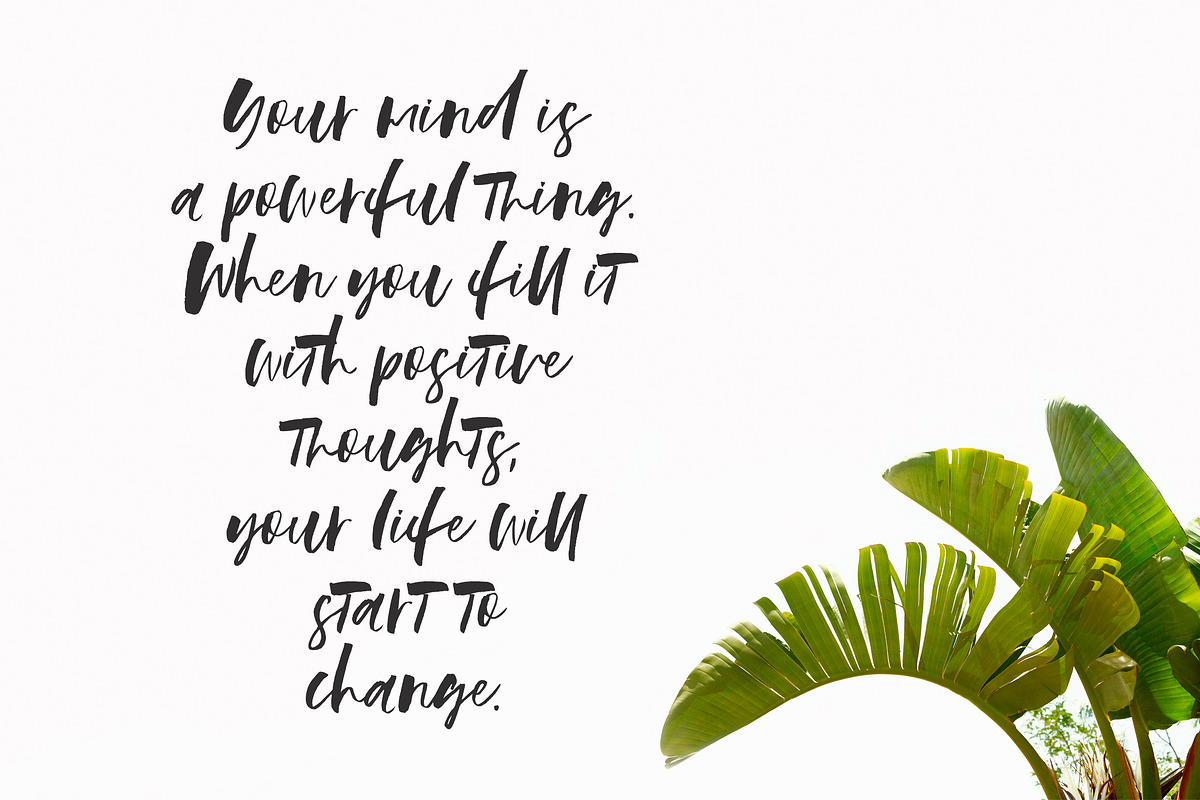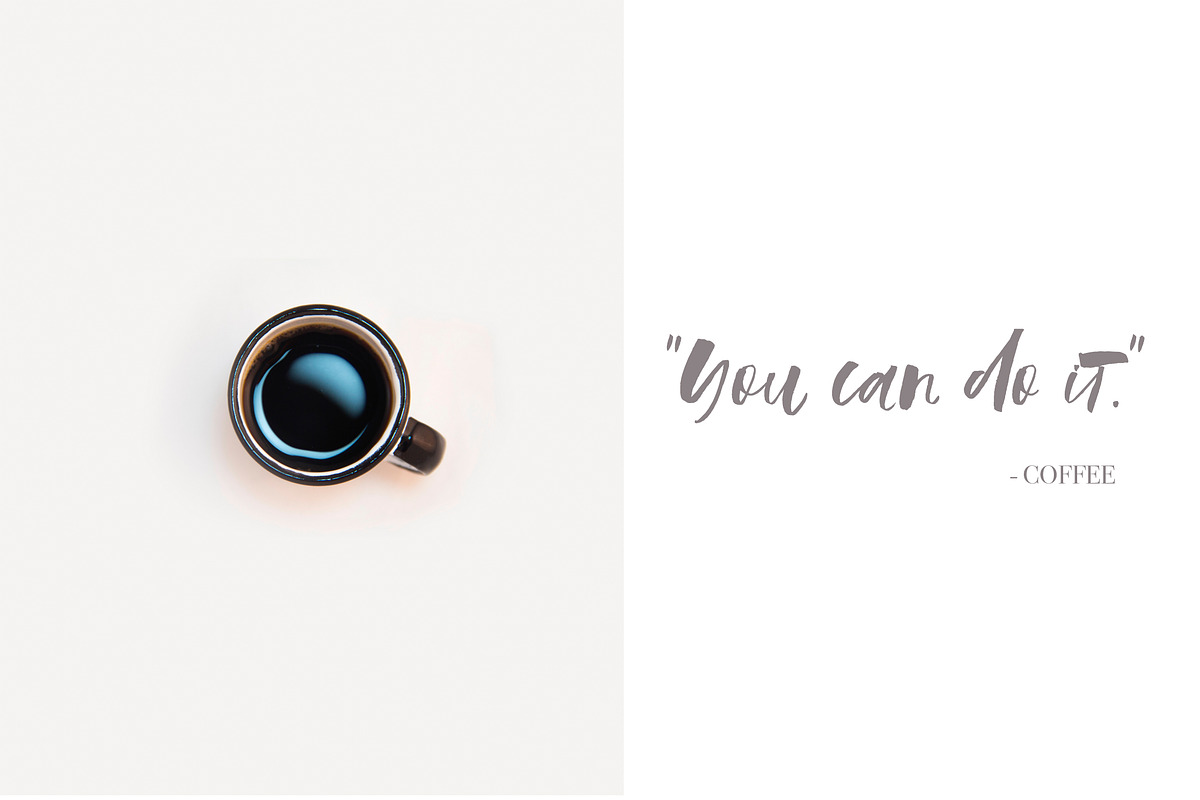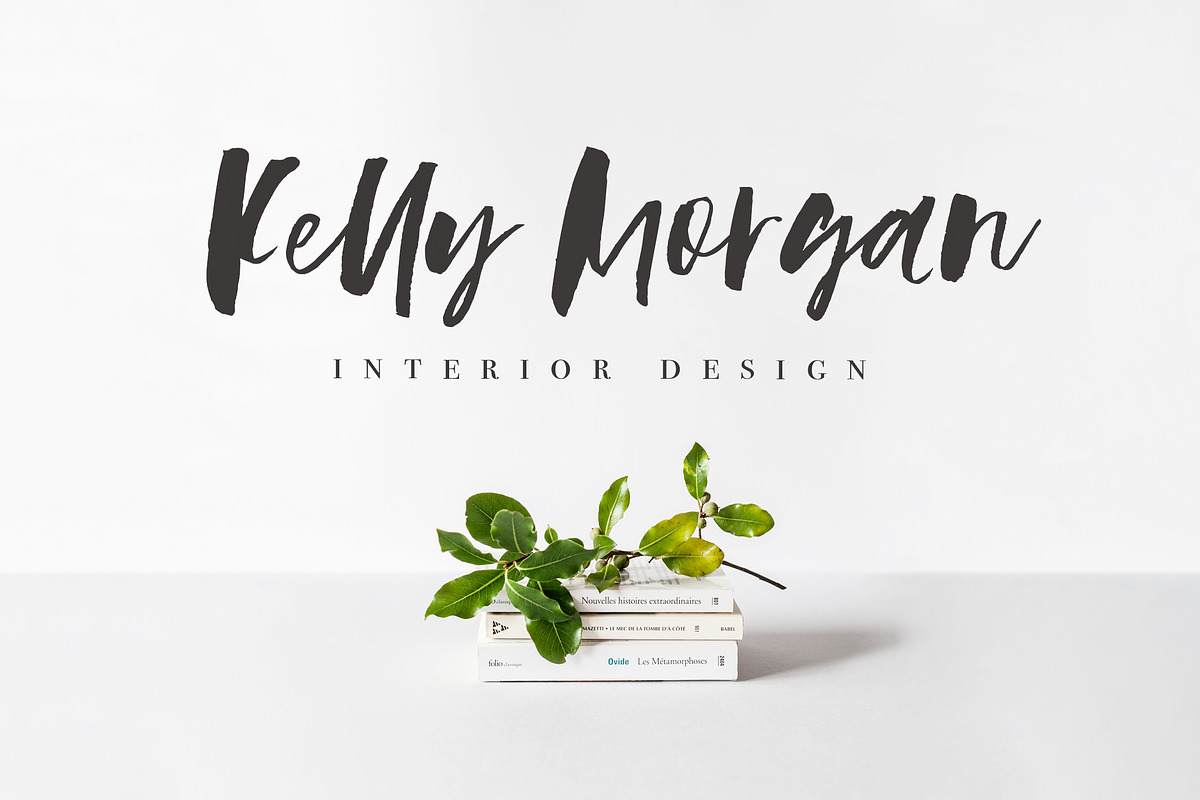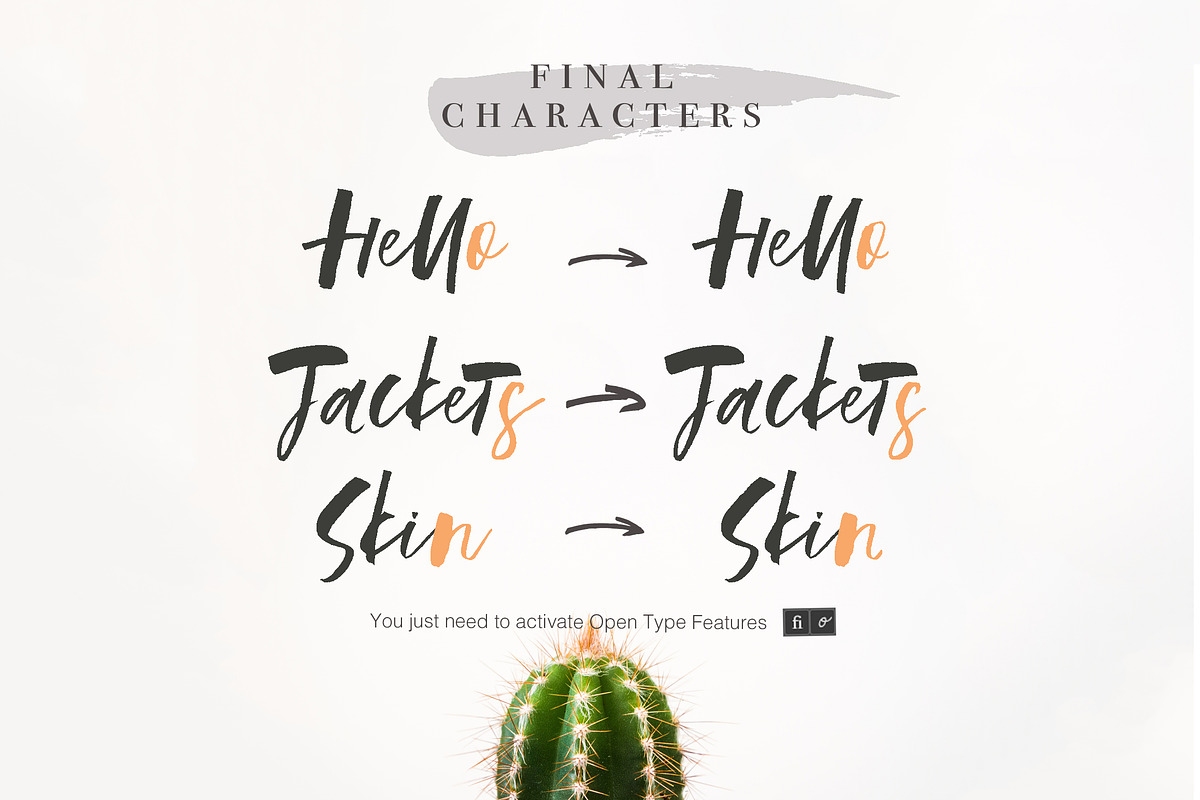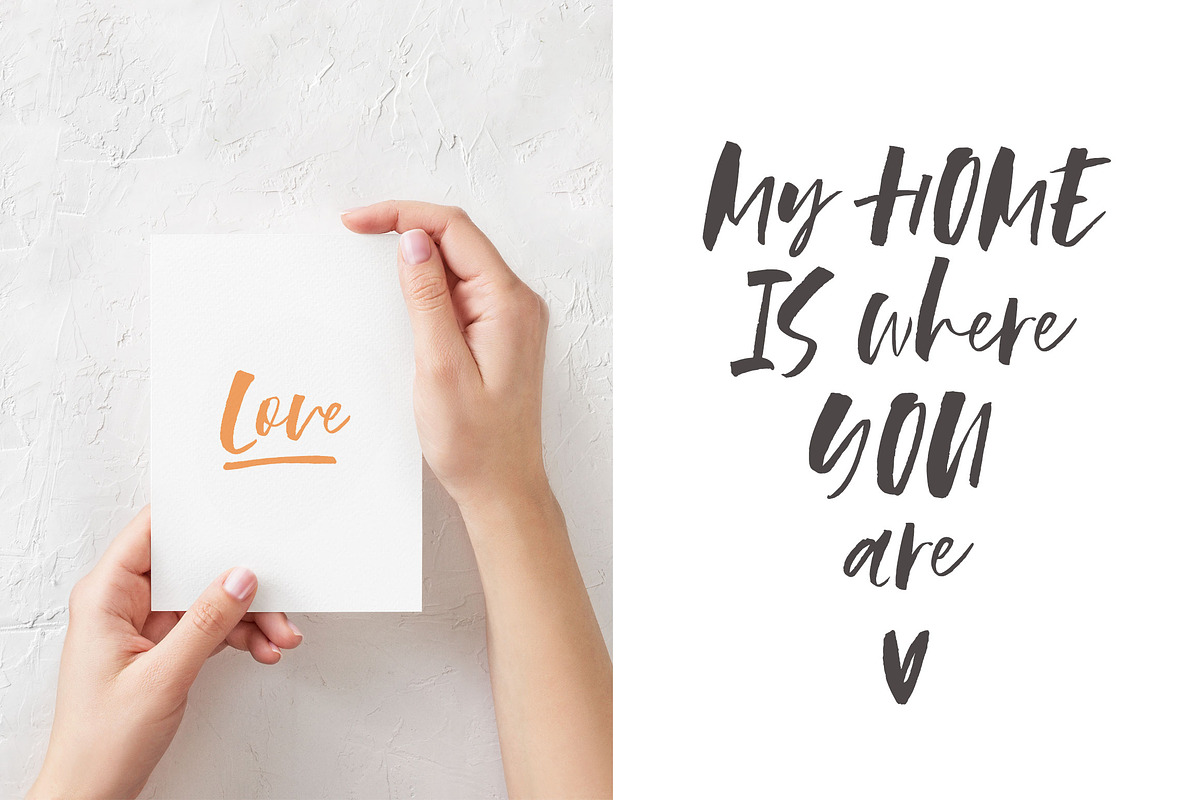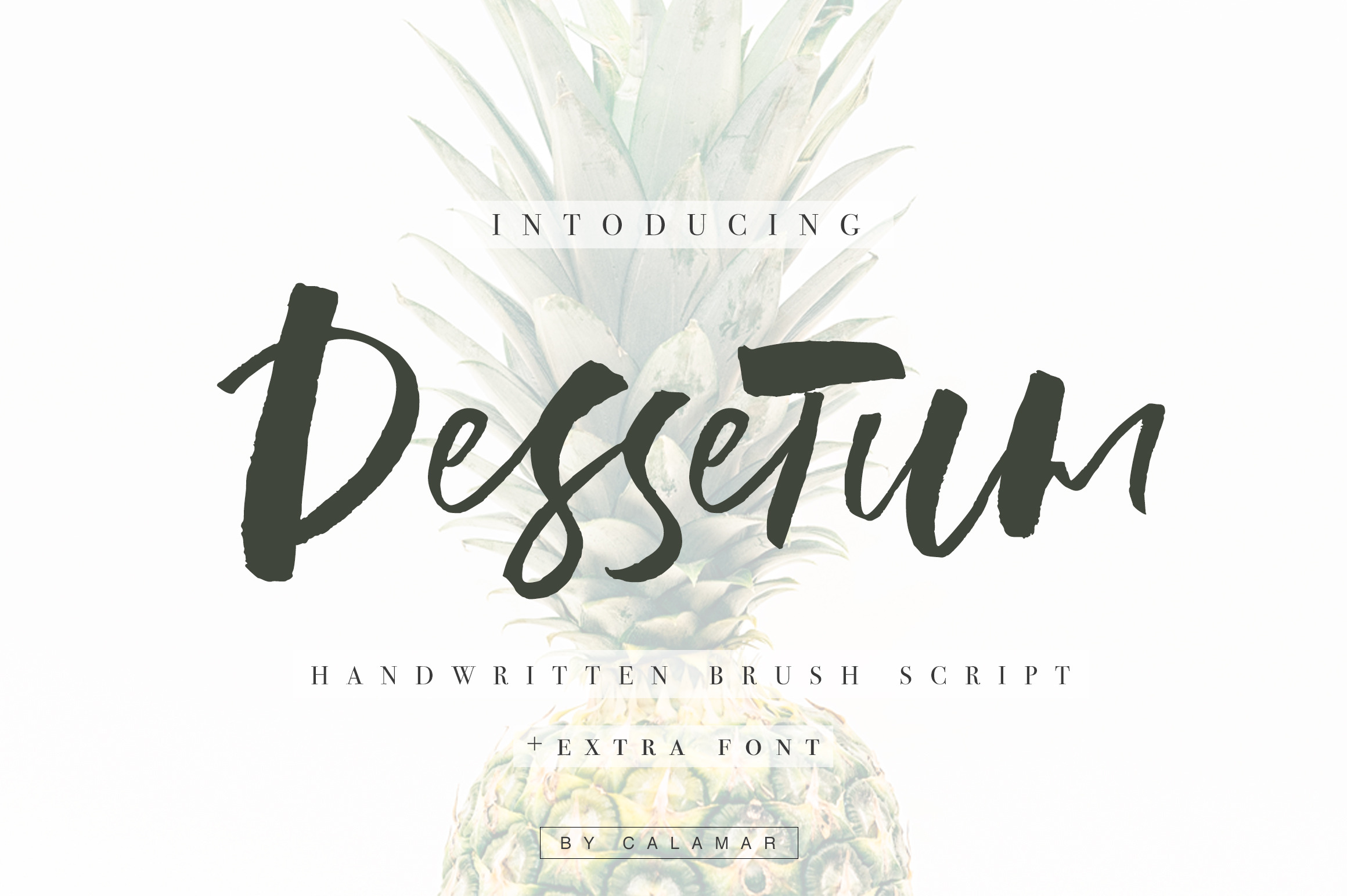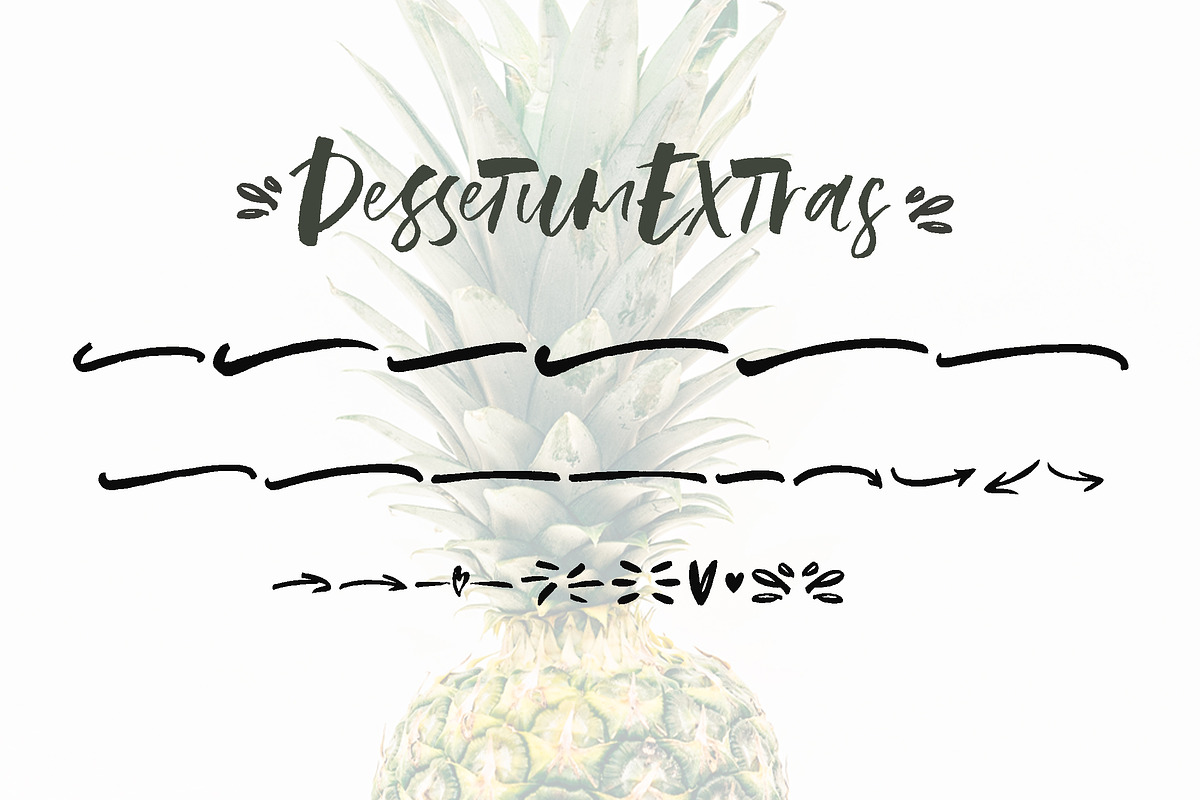
Dessetum Font
I'm happy to introduce you my new Dessetum Font!
It's a hand brushed script created with a brush and ink. This impressive font will look awesome on cards, logos and branding materials, headings, quotes, t-shirt and any other amazing projects you are working on.
Dessetum Font includes Upper and Lowercase Basic Characters, Numbers and Punctuation. Open Type Features include ligatures and some contextual alternatives (final glyphs).
Dessetum Font has multilingual support for the Western and Central European Languages.
Extra Font includes 26 handdrawn shapes which you can type out using the characters a-z, A-Z.